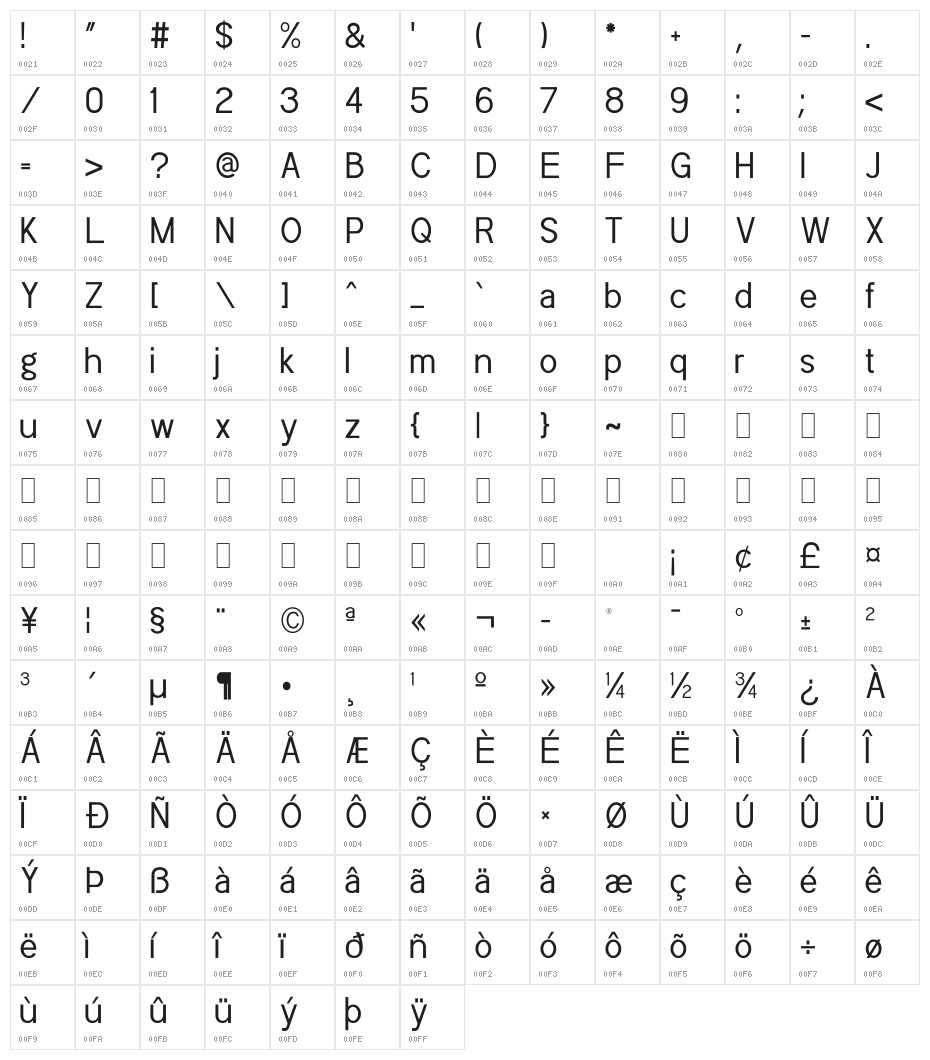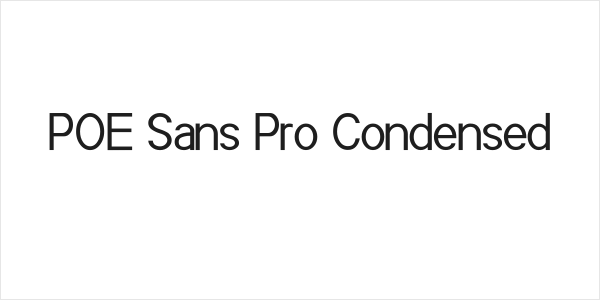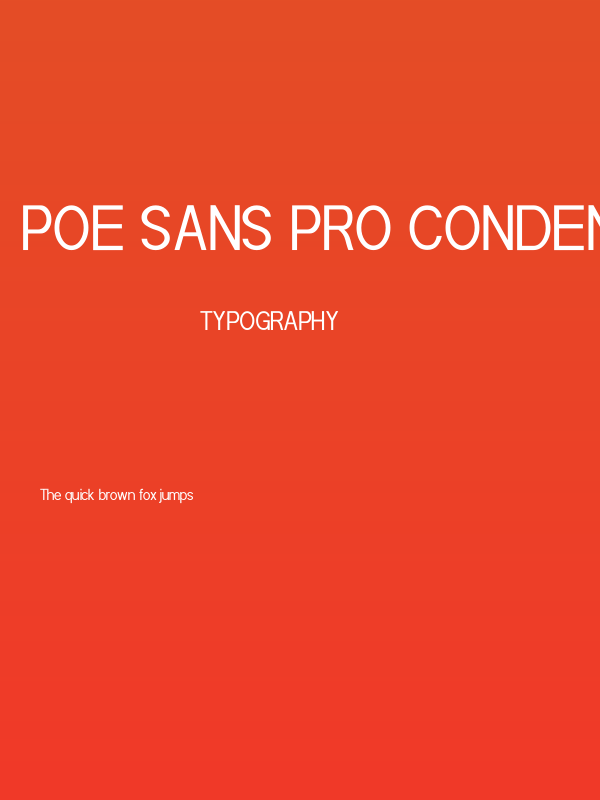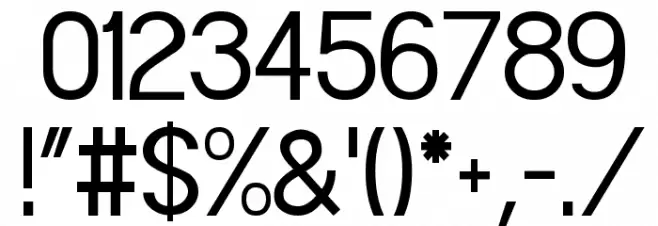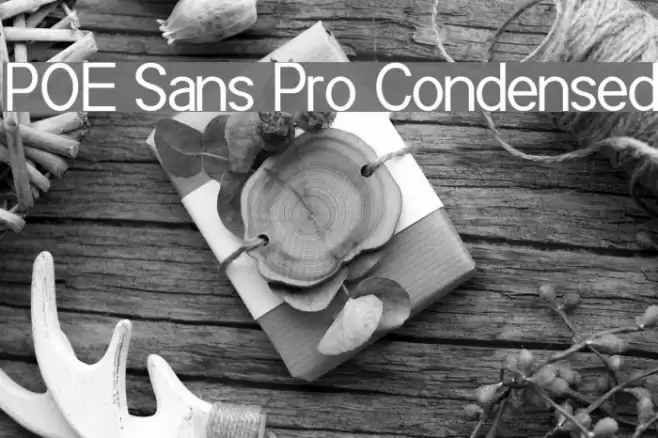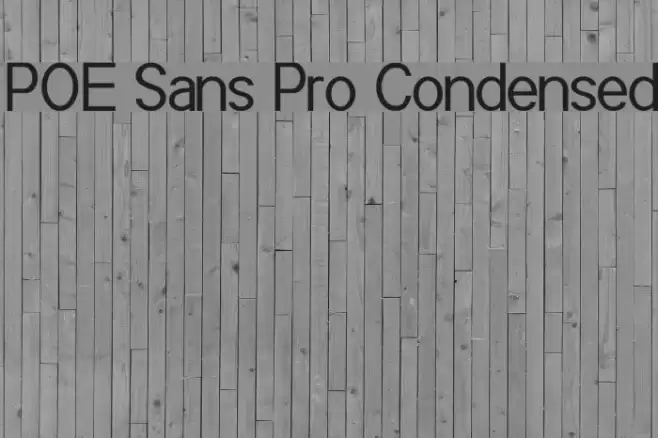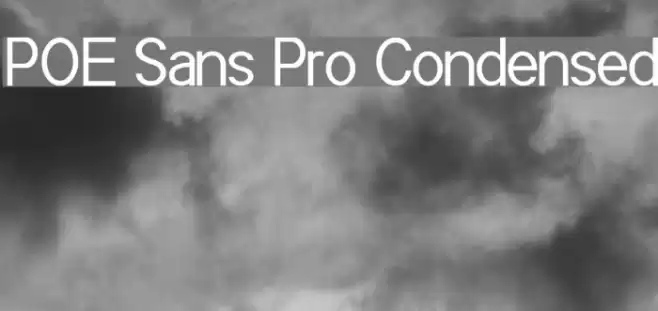
POE Sans Pro Condensed Font
POE Sans Pro Condensed Description
This typeface features a clean and modern sans-serif design with a condensed structure, making it highly versatile for various applications. The characters are uniformly proportioned, providing a sleek and professional appearance. The uppercase and lowercase letters maintain a consistent height and width, contributing to its readability. The numerals are straightforward and align well with the overall style, while the special characters are distinct and easily recognizable. This font's simplicity and clarity make it suitable for both digital and print media.
| Proposed Projects | Ideal for corporate branding, website headers, editorial layouts, and advertising materials. |